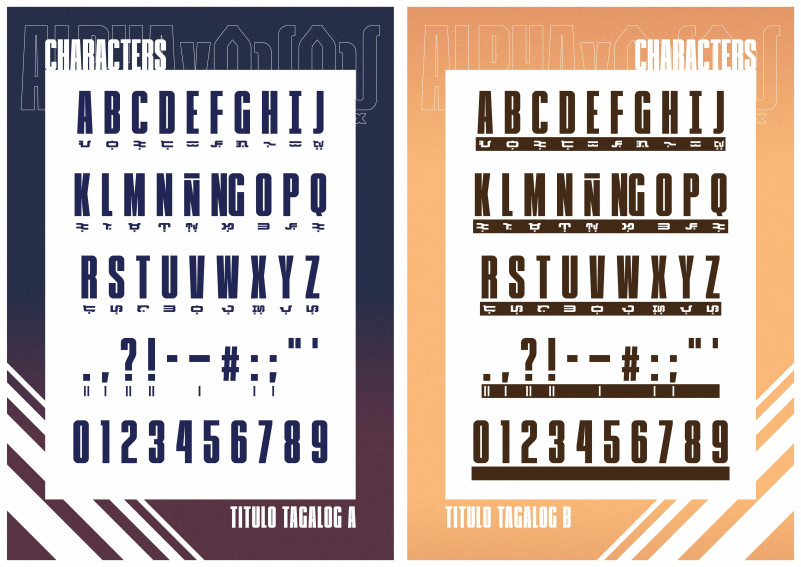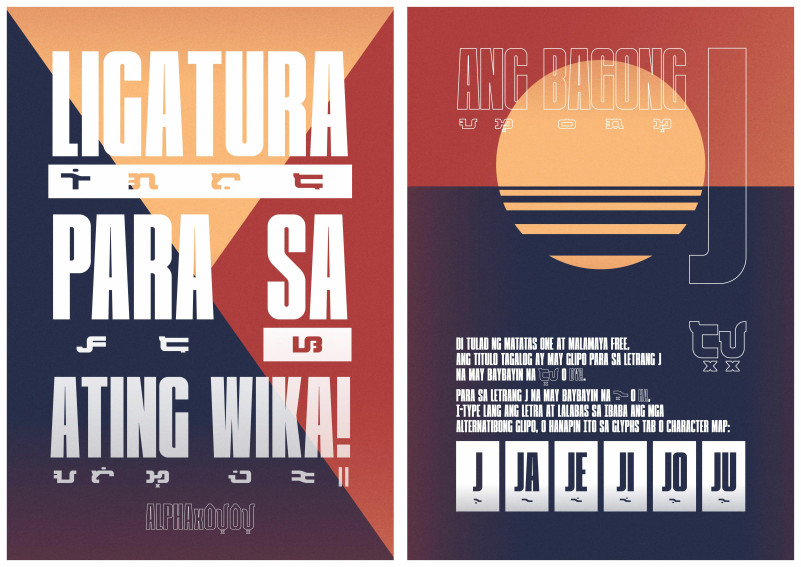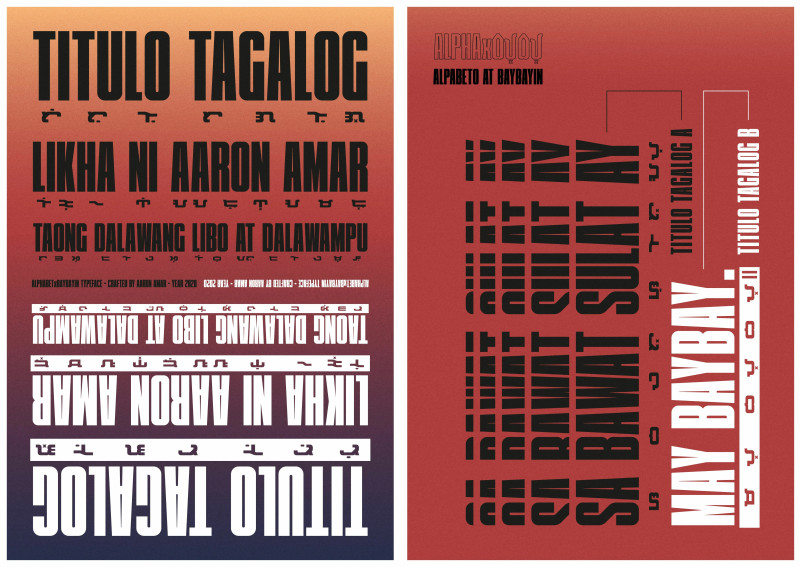
Titulo Tagalog Font
Titulo Tagalog Sans Serif Font by Aaron Amar is a modern compressed display Sans Serif Typeface fused with Baybayin under every syllables and powered with Ligatures for translation accuracy between Alphabet and Baybayin script for Filipino words. Ideal for titlings on your art and design projects.